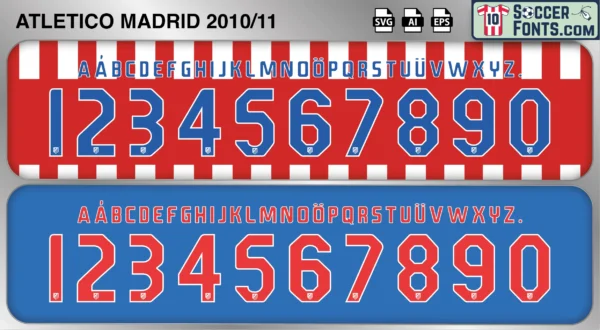
Atletico Madrid 2010-11 Font
The Atletico Madrid 2010-11 font is an editable soccer jersey lettering design in vector format inspired by the Atletico Madrid kit style used during the 2010-11 football season. This football font artwork is prepared for football shirt recreations, custom jersey projects, football kit mockups and sports graphic design workflows.
The 2010-11 season followed one of the most successful years in modern Atletico Madrid history after the club had won the UEFA Europa League and UEFA Super Cup in 2010. Expectations were high as Atletico entered the campaign with players such as Sergio Agüero, Diego Forlán, José Antonio Reyes, David de Gea, Diego Godín and Tiago. The team competed in La Liga and returned to the UEFA Champions League, aiming to establish itself among Europe’s elite clubs. Agüero continued to develop into one of the most exciting forwards in world football, while goalkeeper David de Gea attracted increasing attention before his eventual move to the Premier League.
The Atletico Madrid 2010-11 font became associated with a transitional season that marked the end of one era and the beginning of another. Although Atletico did not replicate the success of the previous campaign, the squad remained filled with talented players who contributed to the club’s growing reputation in European football. The season is remembered as the final campaign of Agüero and De Gea in Atletico colors, closing an important chapter in the club’s development. Atletico Madrid shirts from the 2010-11 season remain popular among football shirt collectors and supporters because of their connection to the post-Europa League period, emerging stars and a squad that helped lay the foundations for future achievements. The Atletico Madrid 2010-11 font reflects an important stage in the evolution of one of Spain’s most historic clubs.